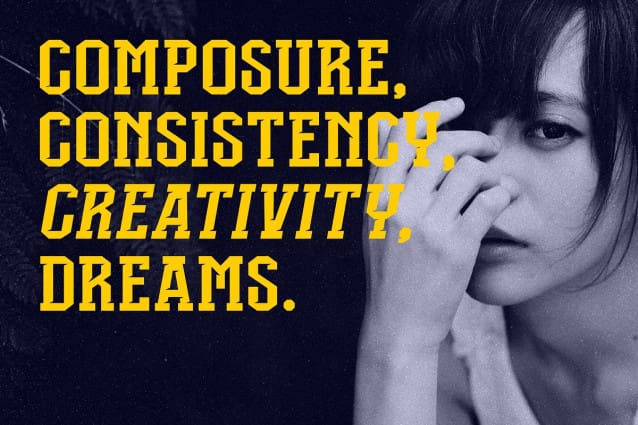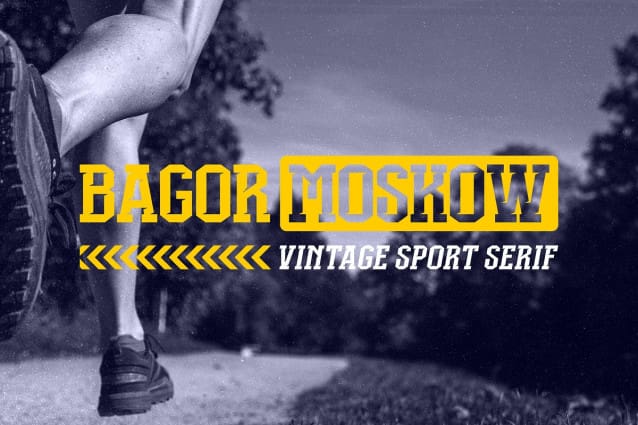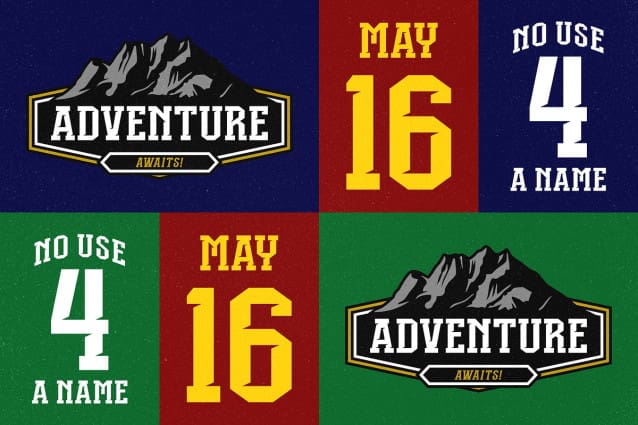
Bagor Moskow Font
Bagor Moskow Font, an all caps blocky font, inspired by the classic letters that are used in sport’s jersey/apparel. We made it relevant with today’s trend by adding some small details. Suits best for logo/branding, sports jersey/apparel, headline, posters, etc.